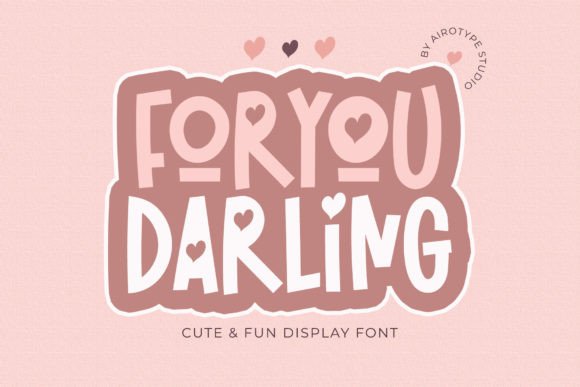
For You Darling: A Sweet Typeface for Your Projects
Finding the perfect typeface for a heartfelt project can feel like searching for a hidden gem. Imagine a font that instantly evokes warmth, playfulness, and a touch of whimsical charm—exactly what you get with For You Darling. This cute and lovely display font, decorated with sweet little heart elements, brings a unique personality to any design. Its quirky and playful feel is perfect for Valentine's Day crafts, adorable gifts, greeting cards, and more, making it a versatile addition to any creative's toolkit. The true value of a premium font like this lies in its ability to convey a specific mood instantly. While standard sans serif font or serif font choices are essential for body text, a display font like For You Darling is designed to be the star of the show. It excels in contexts where you need to grab attention and communicate joy, love, or celebration. Think of it as a design asset that can elevate a simple project into something memorable and professionally polished.
Creative Uses for a Playful Display Font
This creative font shines across a variety of applications. Its handwritten, script-like quality makes it particularly effective for projects that aim for a personal, artisanal touch. Here are some practical scenarios where it fits naturally:
Tips for Choosing and Using This Font
To make the most of For You Darling, a few considerations will ensure your designs look cohesive and professional. First, always test font pairing. Its playful nature pairs beautifully with clean, simple typefaces. A neutral modern typography choice like a geometric sans serif for body text will provide excellent contrast and maintain readability. Next, consider the context. While it's a fantastic display font, its ornamental details mean it's best used for headlines, logos, or short phrases rather than long paragraphs of text. Ensure the size you use it at allows the charming heart details to be visible and effective. Finally, always verify the license of any font download. A commercial font license is essential if you plan to use the design for client work, products for sale, or any commercial enterprise. Choosing a typeface is a foundational design decision that impacts visual consistency and audience perception. A well-selected font like For You Darling doesn't just spell out words; it communicates an emotion and sets the entire tone for your project. By integrating this handwritten font